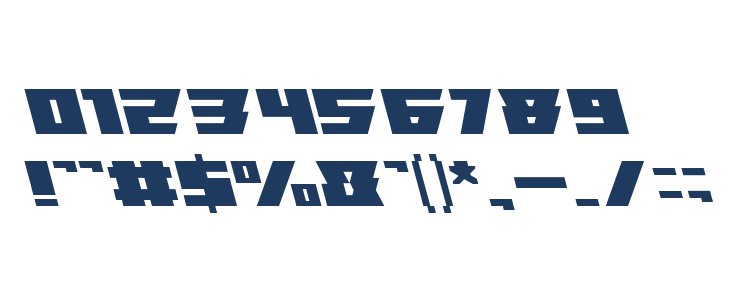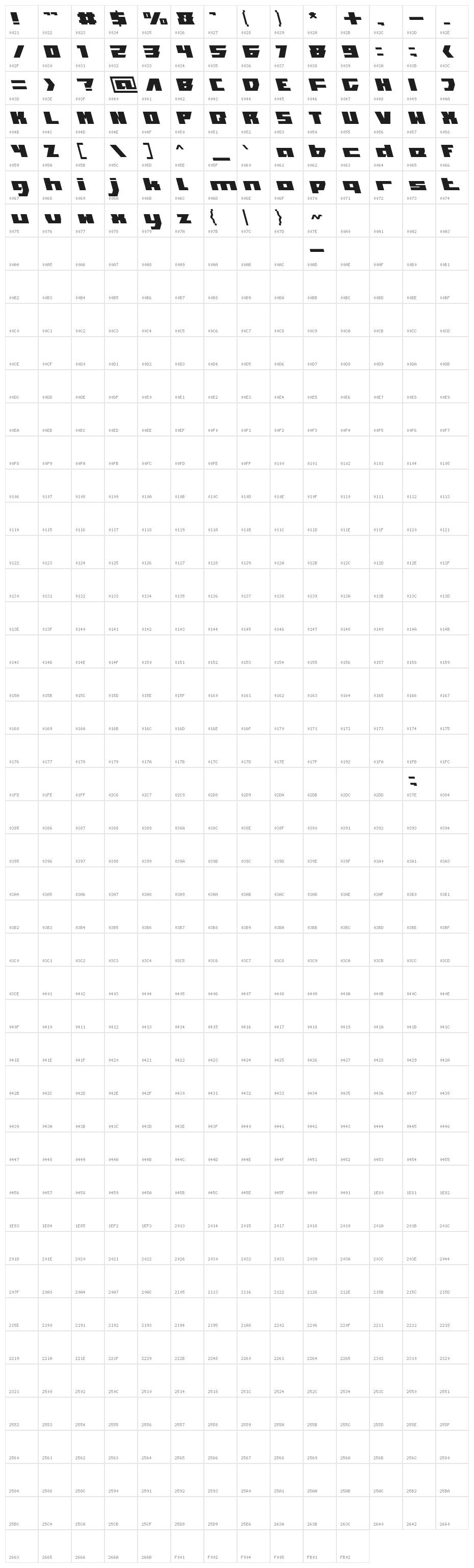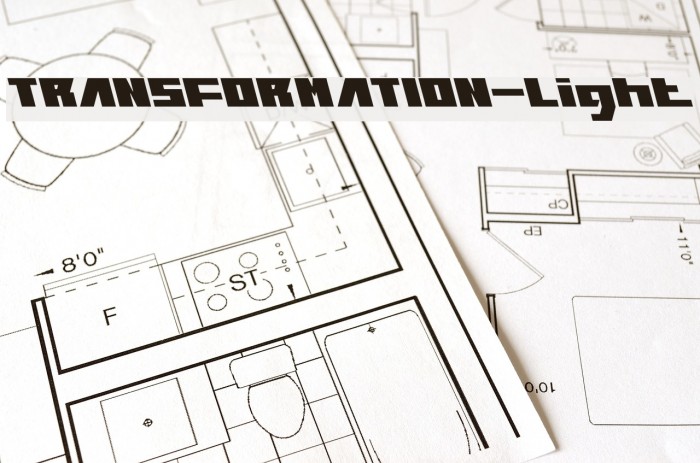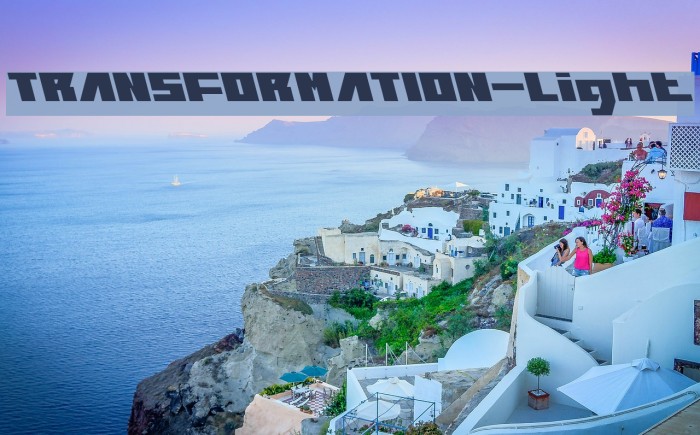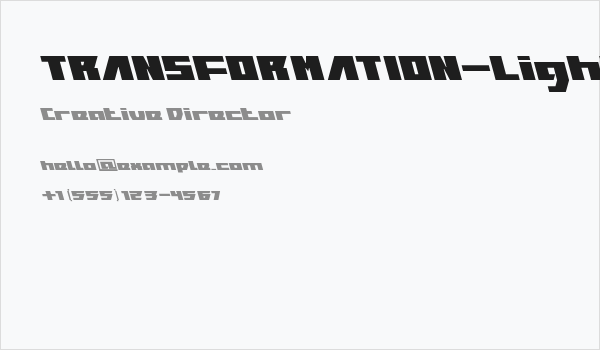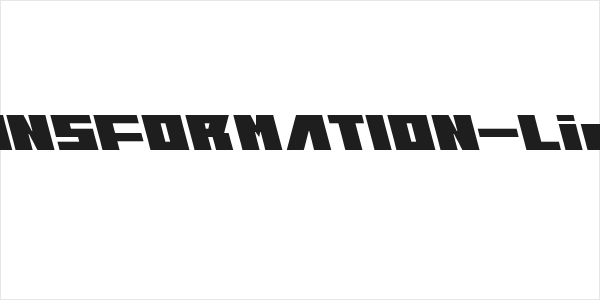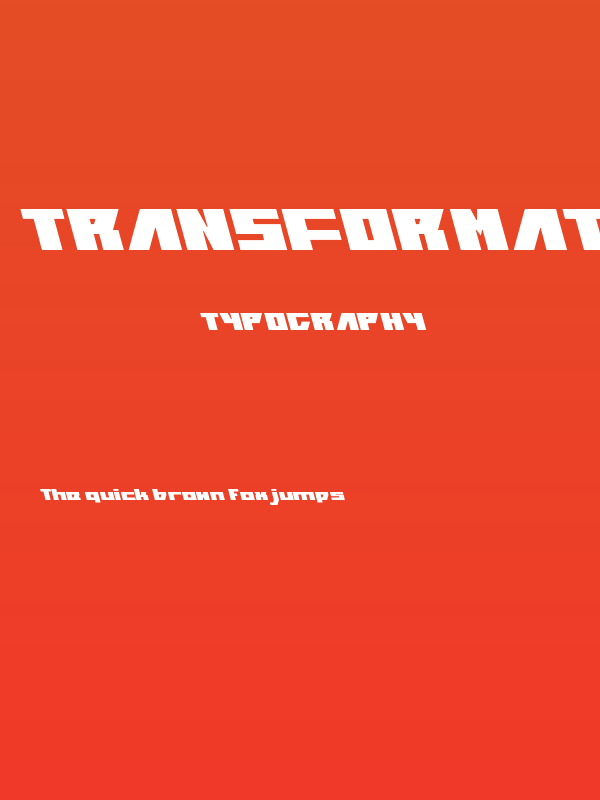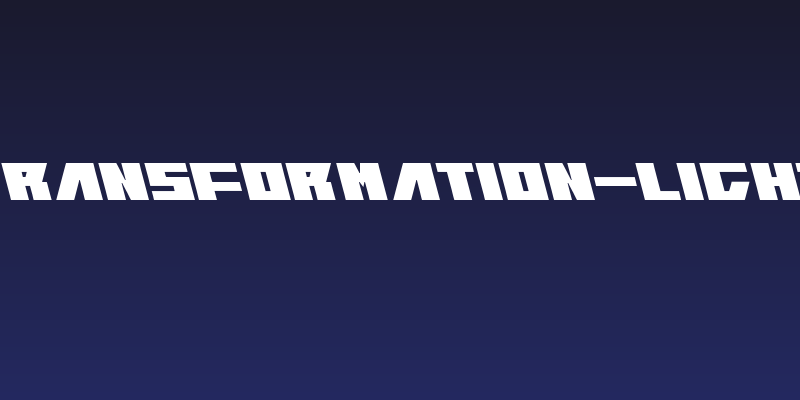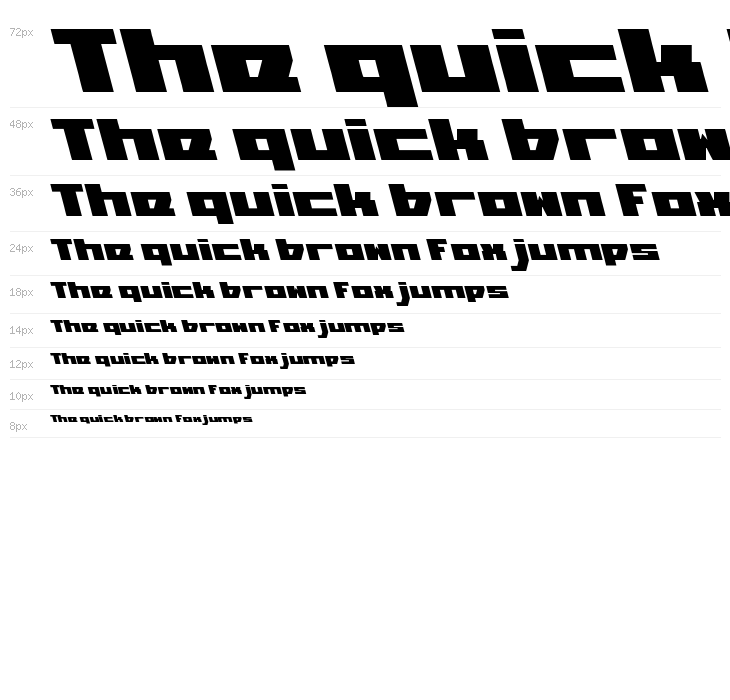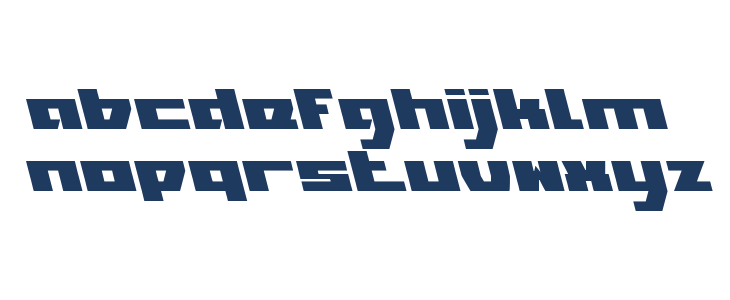
TRANSFORMATION-Light Font
TRANSFORMATION-Light Description
This font exhibits a bold and dynamic style with a futuristic and geometric appearance. The characters are constructed with sharp angles and a blocky structure, giving them a strong and impactful presence. The uppercase and lowercase letters maintain a consistent design, emphasizing a cohesive look. Numbers and special characters follow the same angular and robust design, ensuring uniformity across all glyphs. The font's unique style makes it suitable for projects that require a modern and edgy aesthetic.
Proposed ProjectsIdeal for video game titles, sci-fi movie posters, tech branding, and modern graphic design projects.